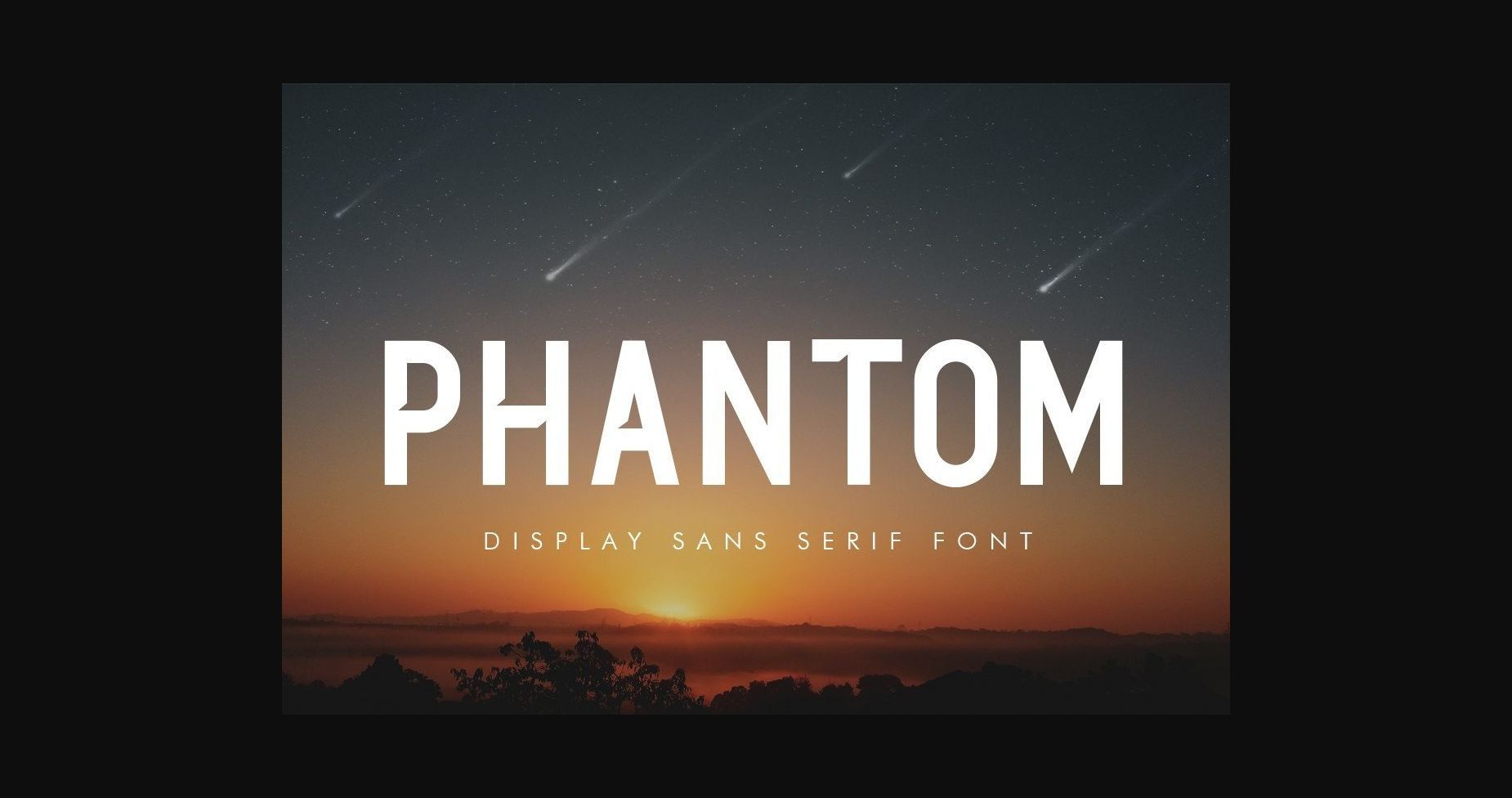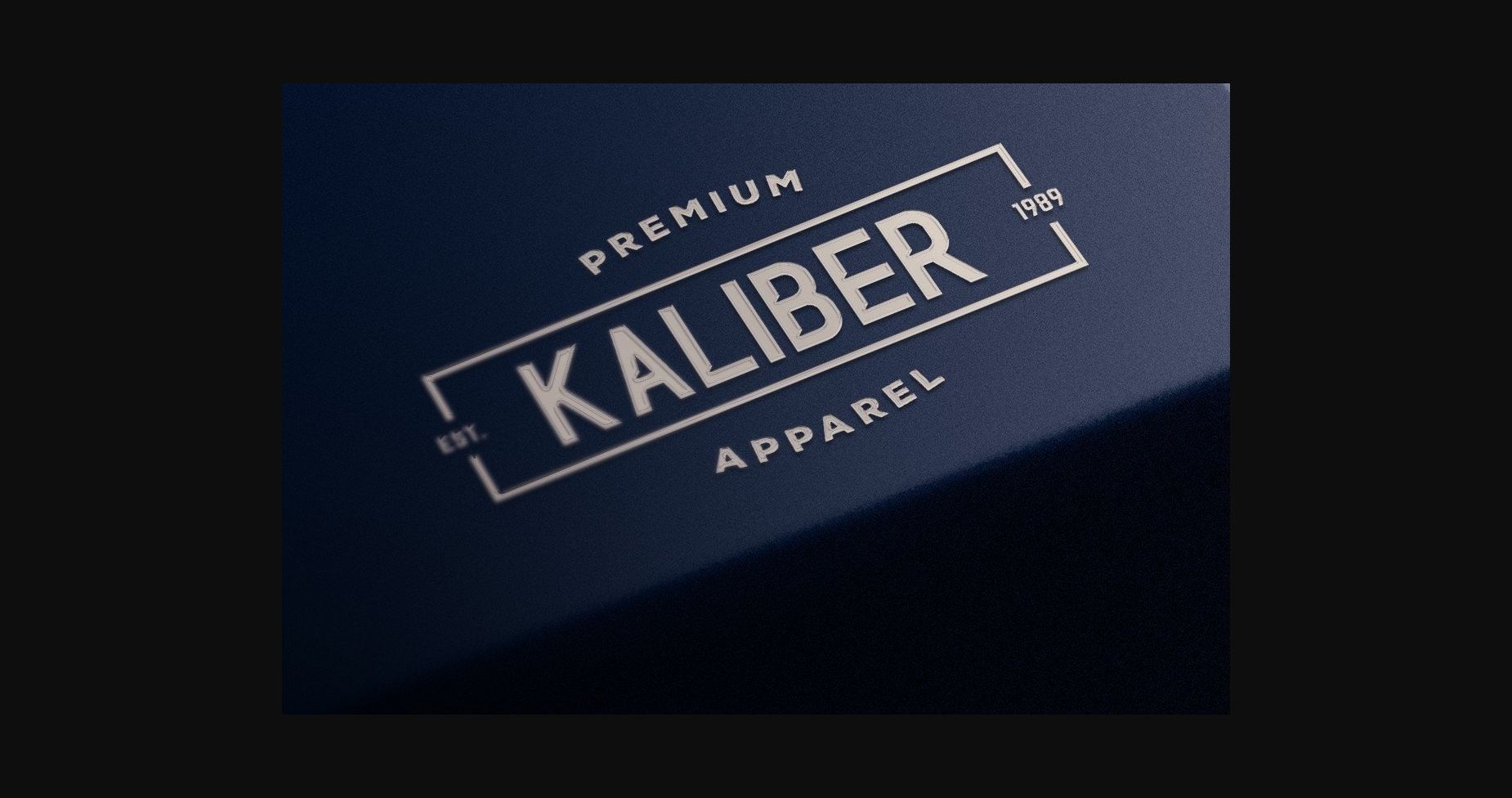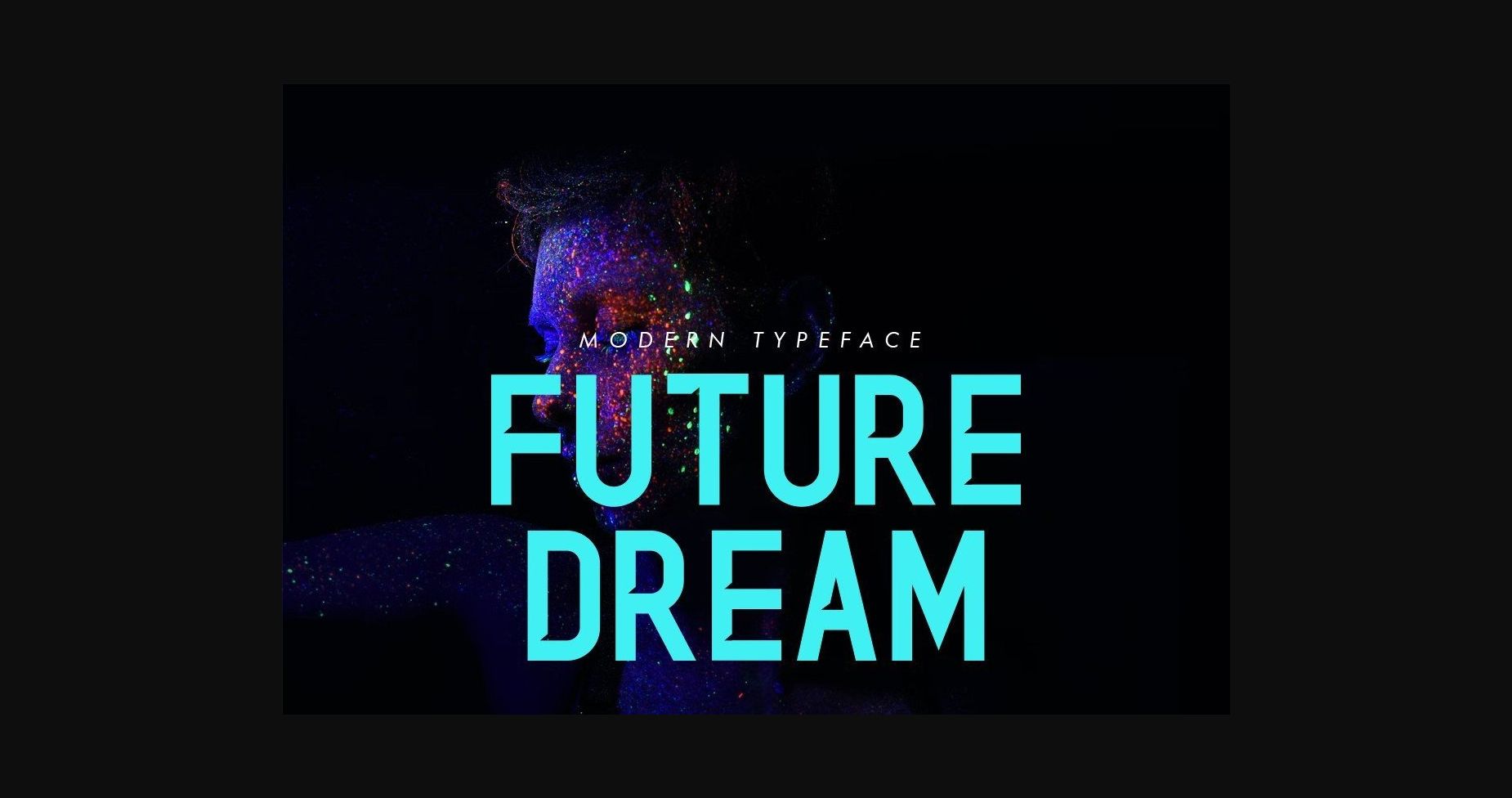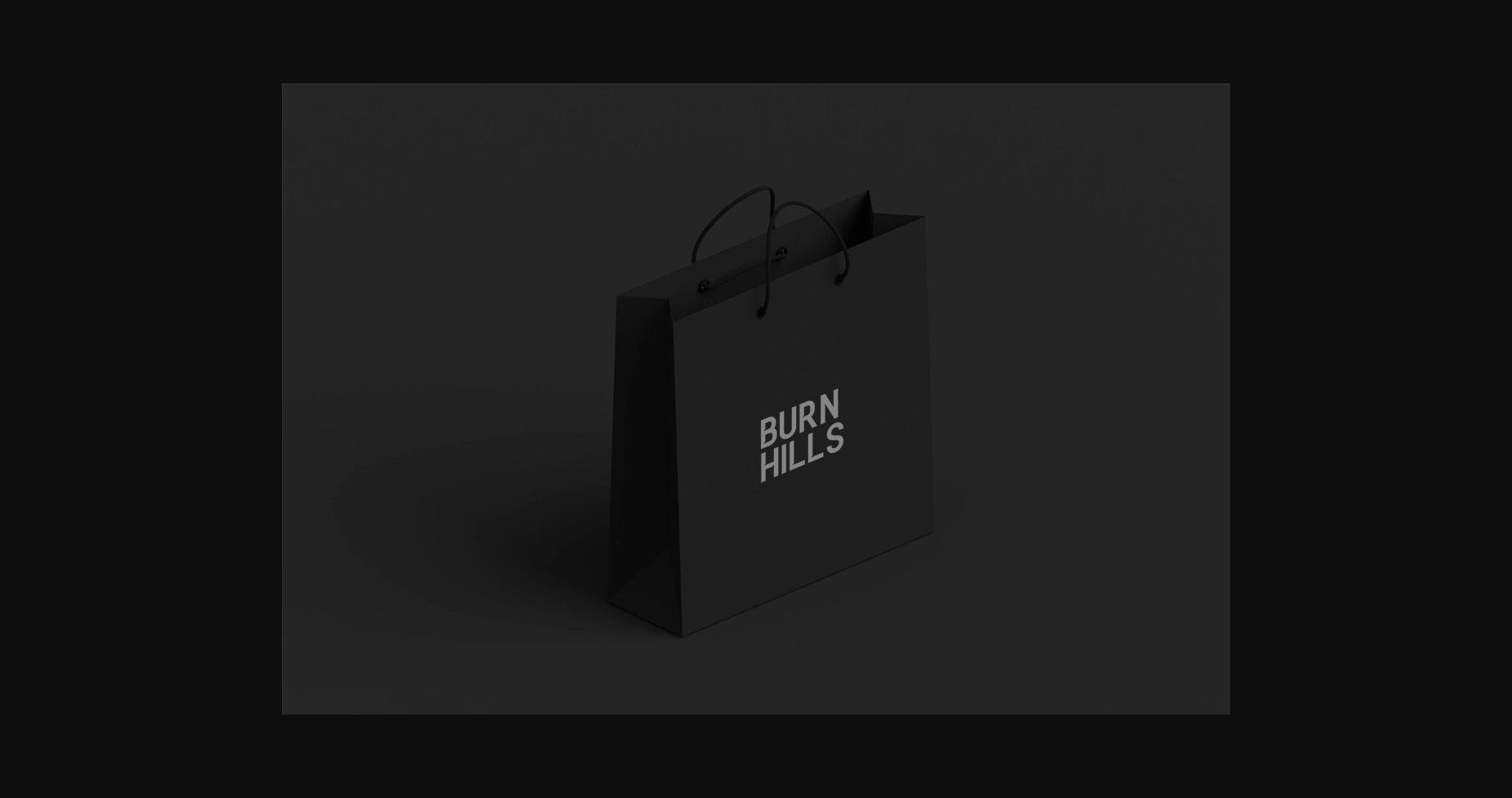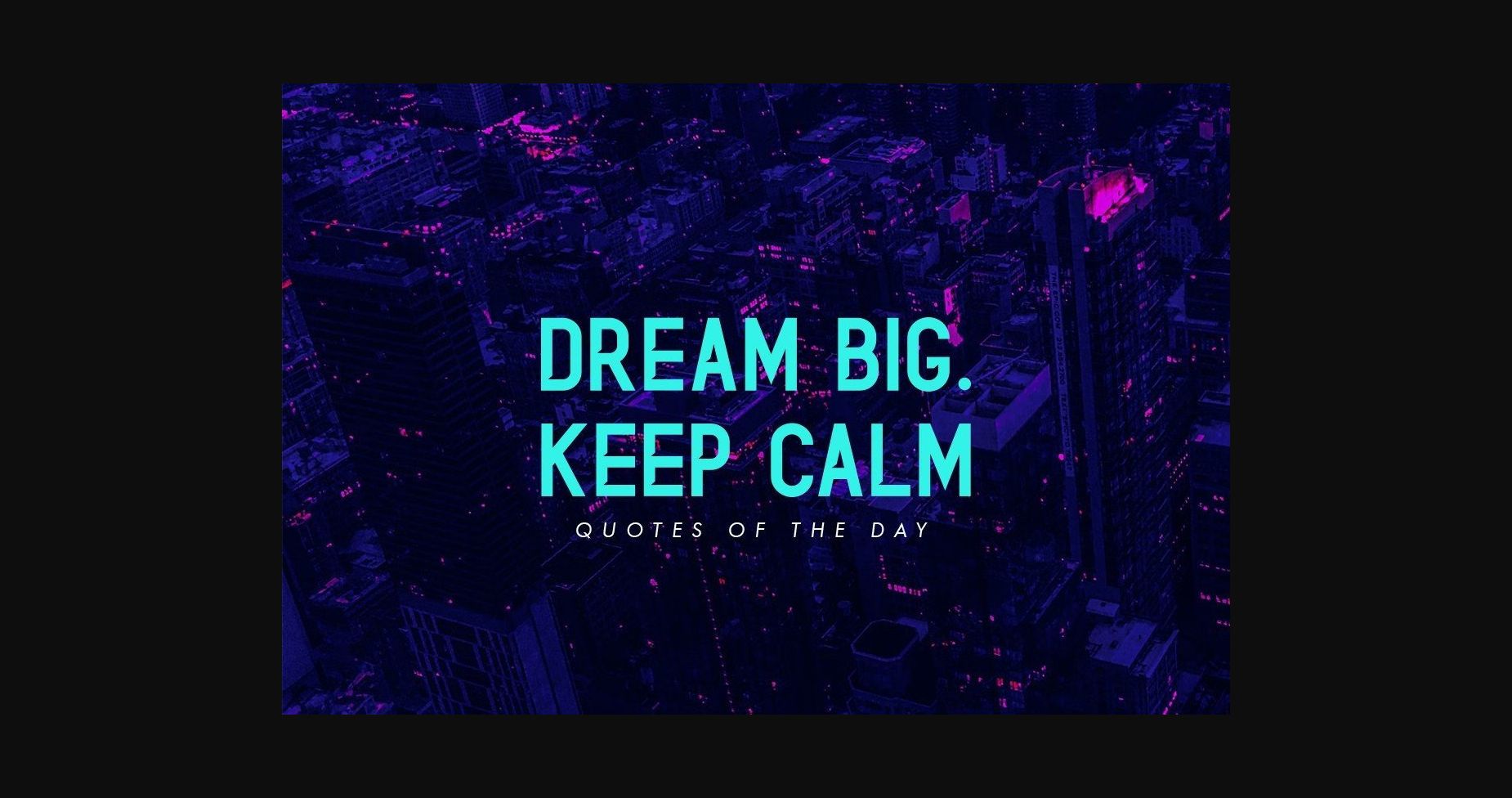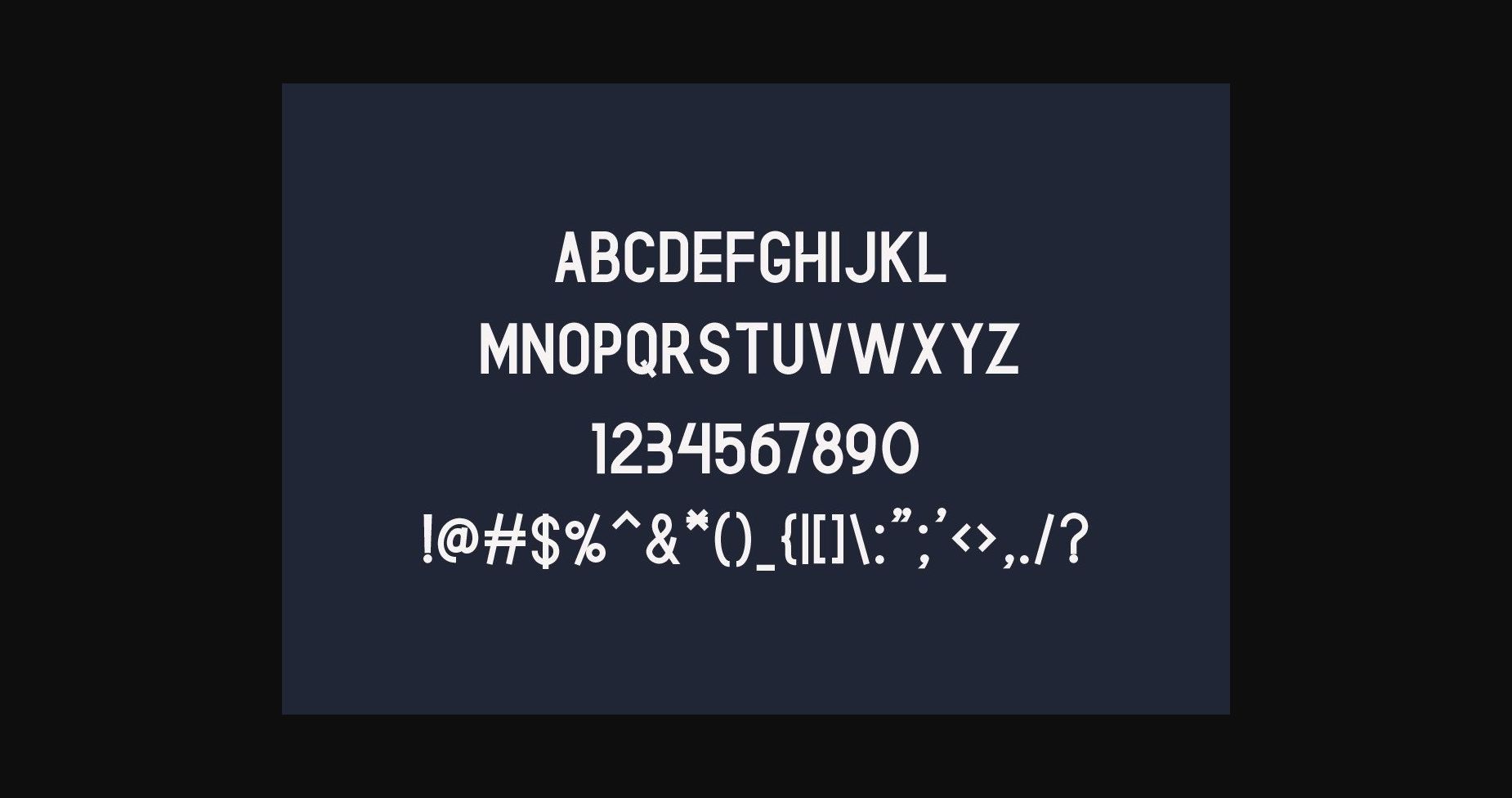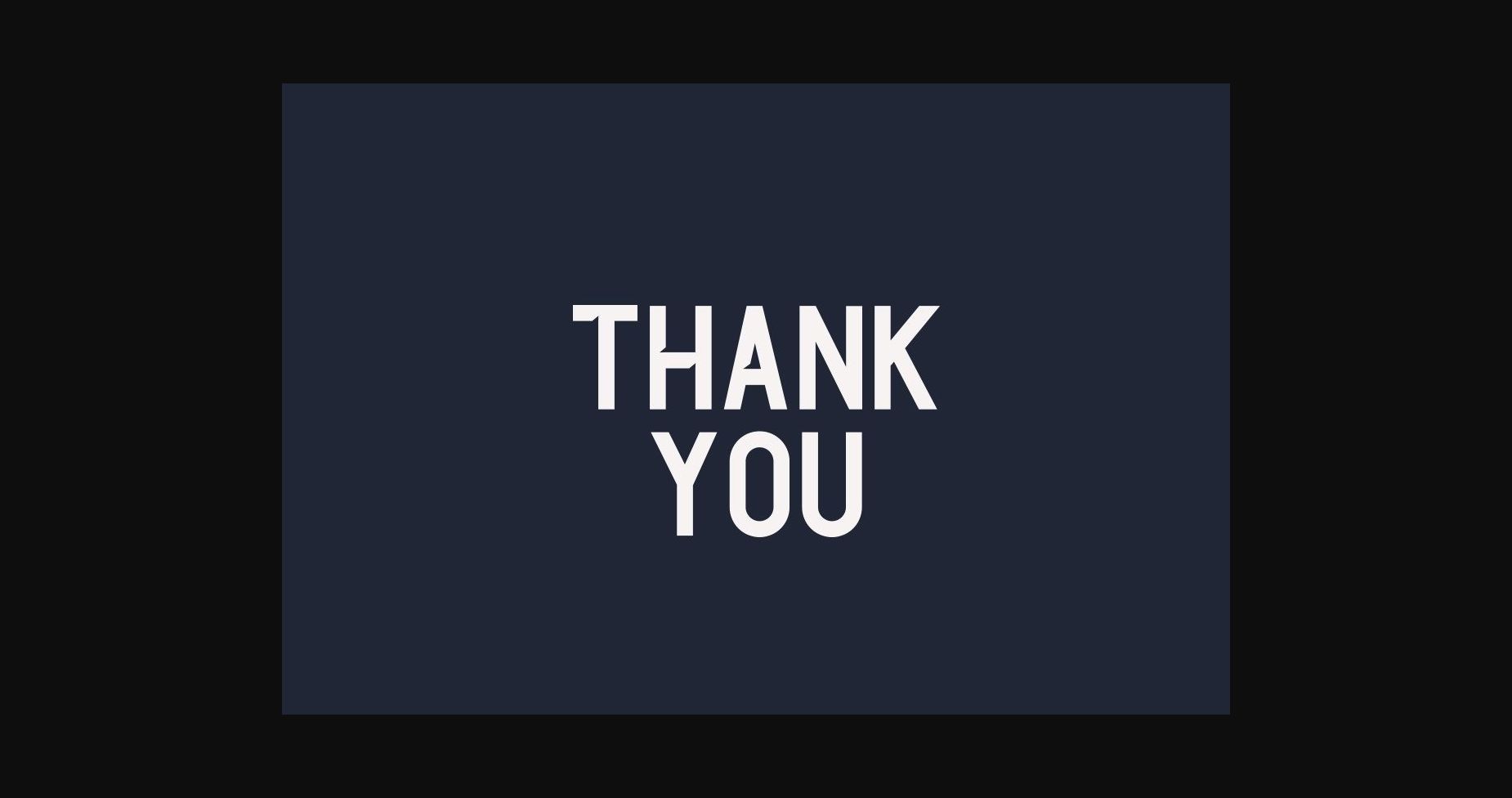
Phantom is a sans-based font with unique lowercase that will make your design looks futuristic and modern. You can use this font for any purpose, especially to make logotypes.